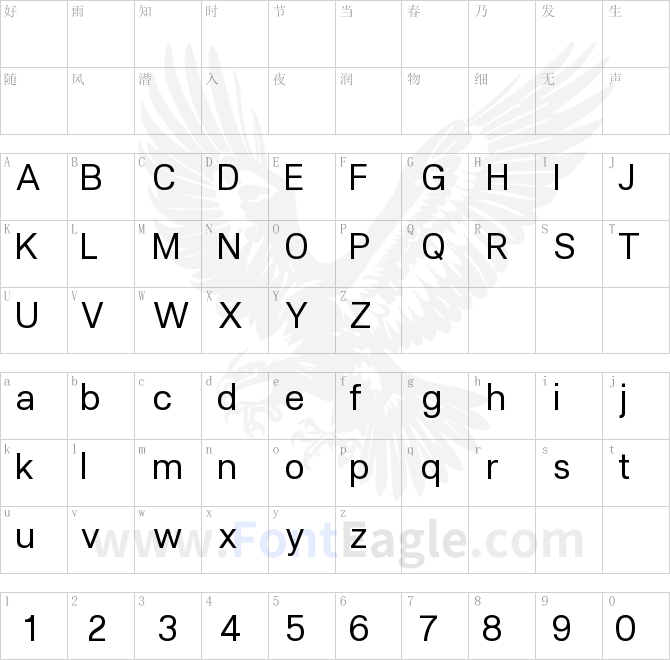
Lunchtype21 is a great font, widely used in graphic design, single-page menu design, poster design and other fields, and is deeply loved by designers.Lunchtype21 download.